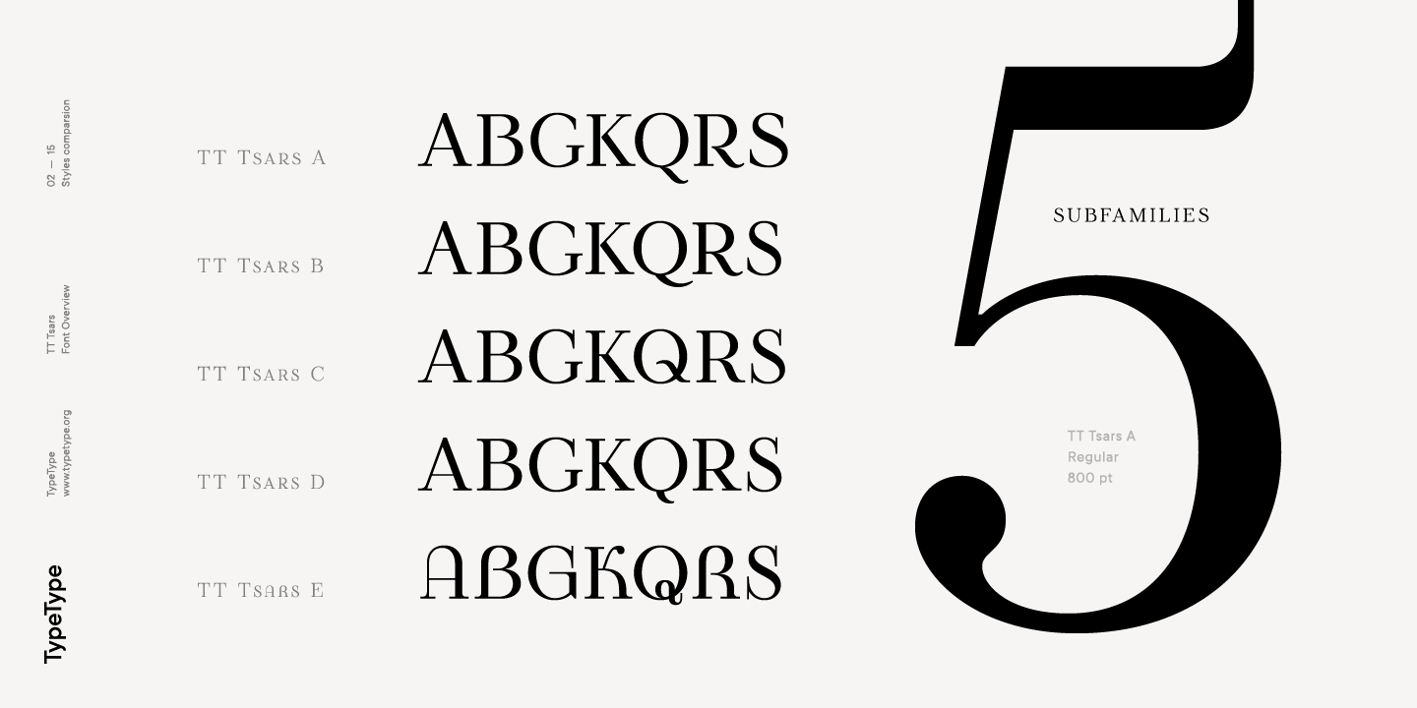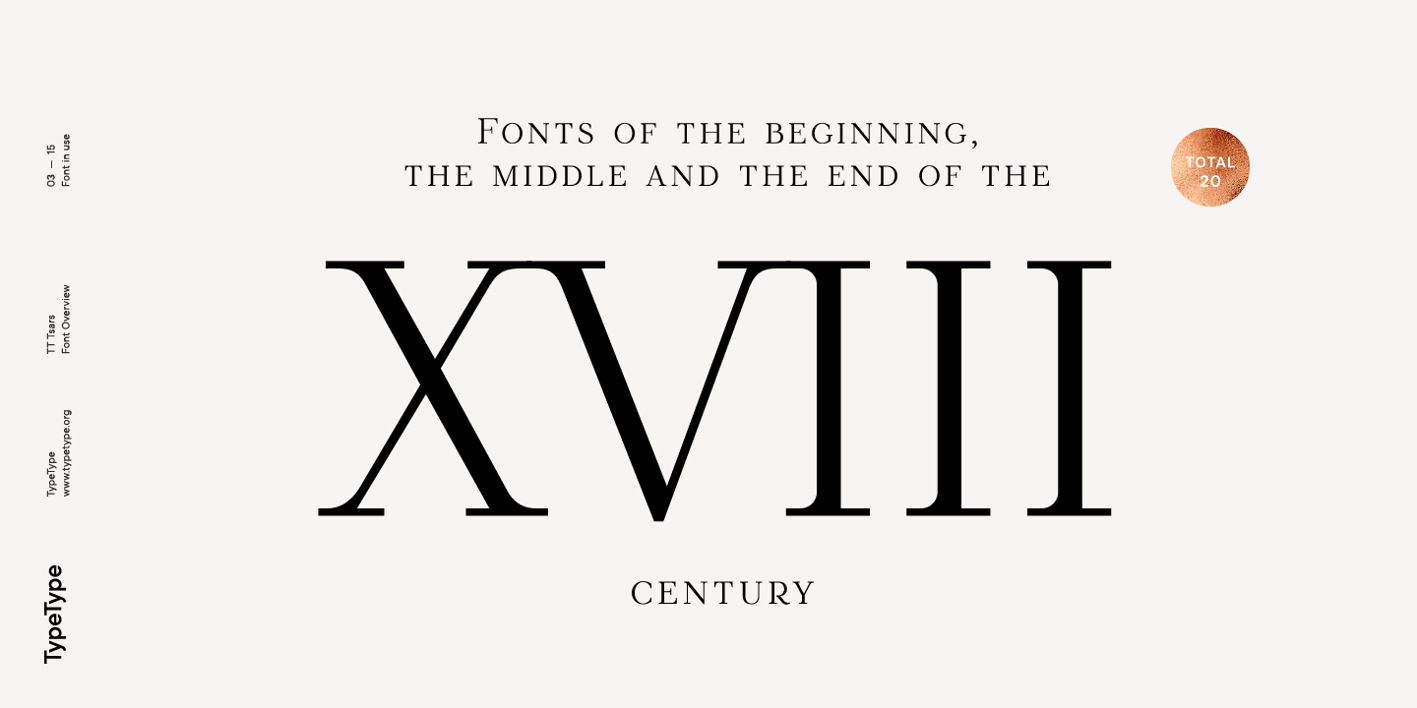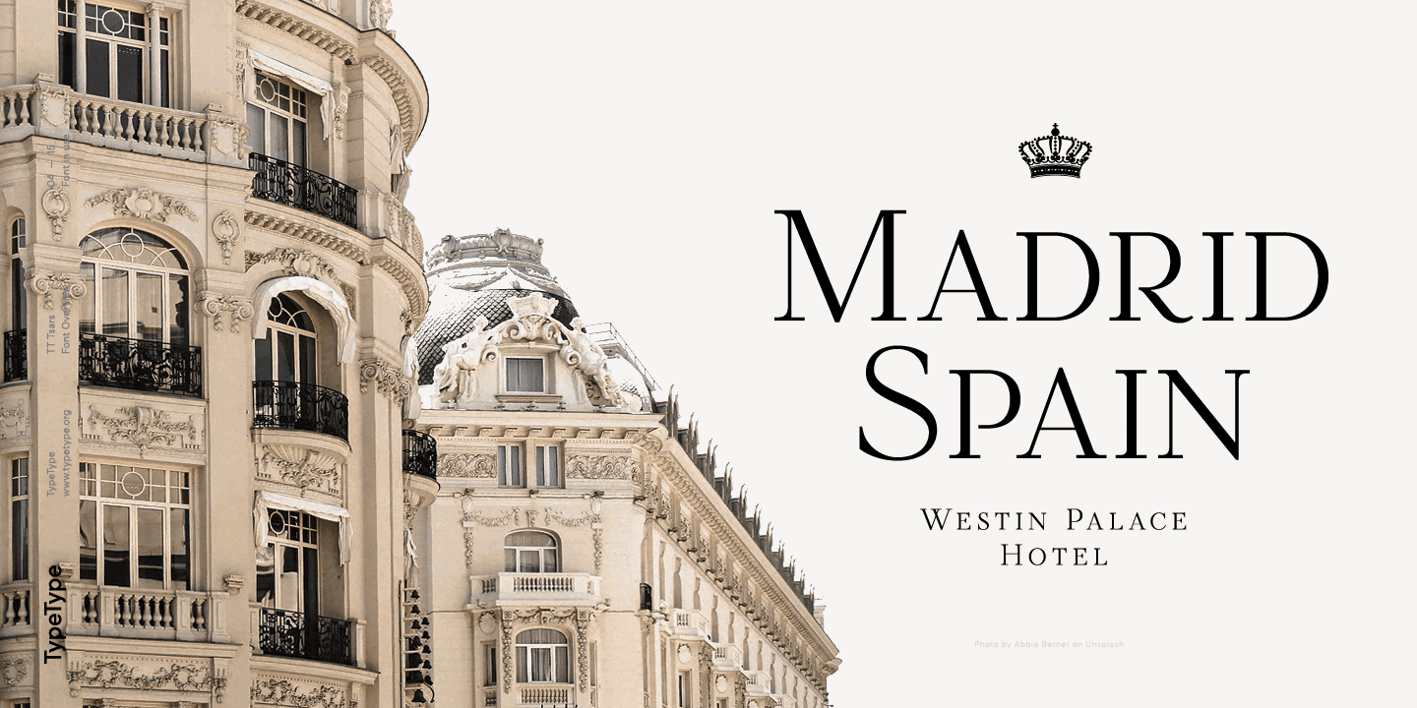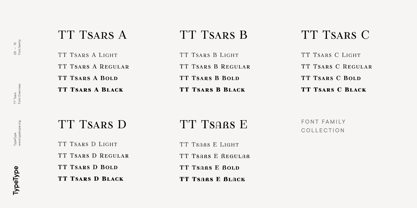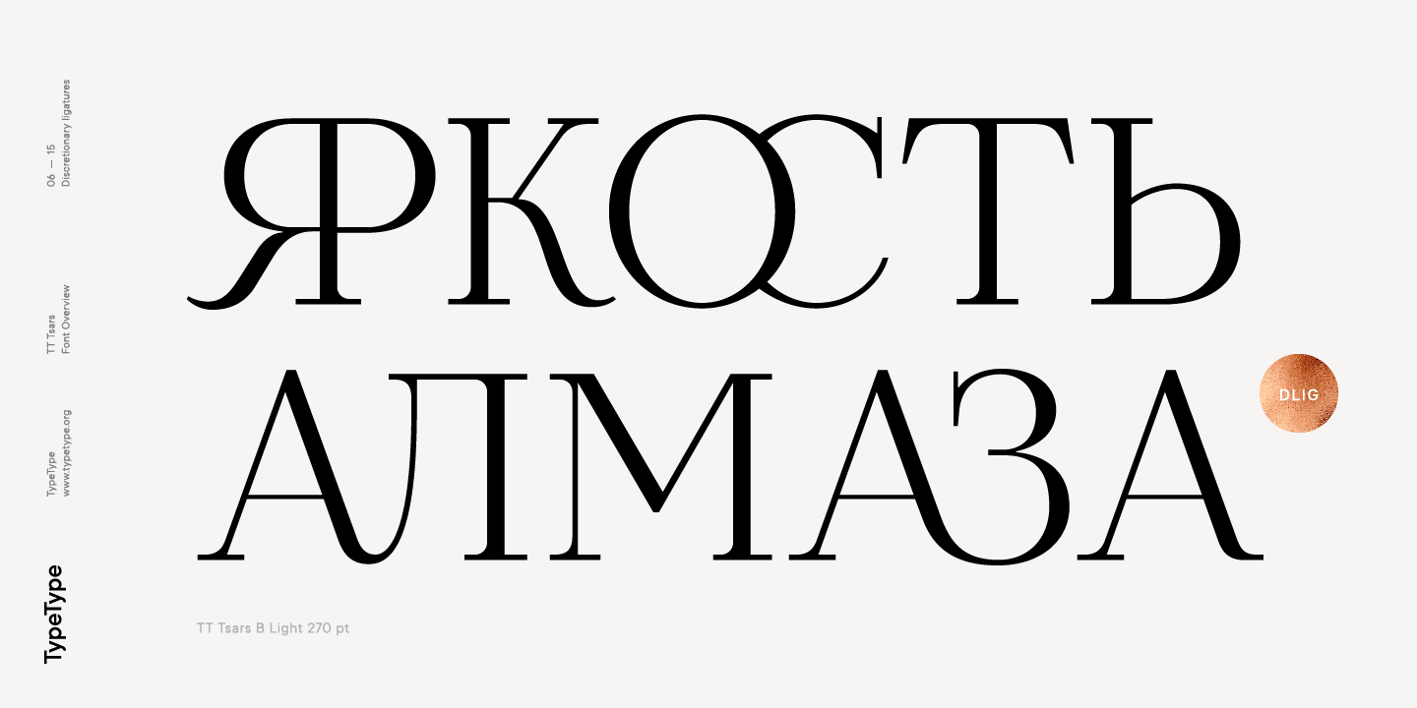
TT Tsars Font
TT Tsars Font is ideal for luxury jewelry branding, royal palace exhibitions, imperial heritage museums, high-end Russian restaurants, premium vodka packaging, aristocratic event invitations, Orthodox church publications, Russian cultural festivals, luxury hotel signage, and exclusive monarch-themed experiences. This majestic typeface brings imperial grandeur and regal sophistication to any luxury-focused design project.
TT Tsars Font is exciting because it embodies the magnificent power and imperial splendor of Russian royal heritage, featuring commanding letterforms that evoke the absolute authority and lavish opulence of the Tsarist era. Its regal character instantly conveys supreme luxury, imperial prestige, and the uncompromising elegance of royal court traditions.
The TT Tsars Font family includes Light, Regular, Medium, Bold, and Black weights with ornate alternates, imperial flourishes, crown-inspired glyphs, and royal ornamental elements that enhance the monarchical aesthetic, providing luxury designers with comprehensive tools for creating typography that captures the magnificent grandeur of imperial Russian culture.
Luxury heritage designers love TT Tsars Font for its exceptional ability to convey imperial authority and royal magnificence through meticulously crafted letterforms. The font's commanding presence and ornate details create immediate associations with palace grandeur, royal ceremonies, and the exclusive lifestyle of imperial courts that defined luxury and power for centuries.
The cultural authenticity of TT Tsars Font draws inspiration from Russian imperial manuscripts, royal proclamations, and the rich calligraphic traditions of Tsarist court documents, making it particularly effective for luxury brands seeking to establish connections with royal heritage and imperial sophistication. Premium teams working on exclusive experiences find this font essential for conveying authentic regality.
Whether used for luxury palace hotels, premium Russian cultural experiences, or exclusive royal-themed events, TT Tsars Font delivers the perfect synthesis of imperial power and magnificent luxury. Its royal appeal and monarchical authenticity make it an indispensable choice for brands that celebrate imperial heritage, royal traditions, and the supreme elegance of Tsarist magnificence.